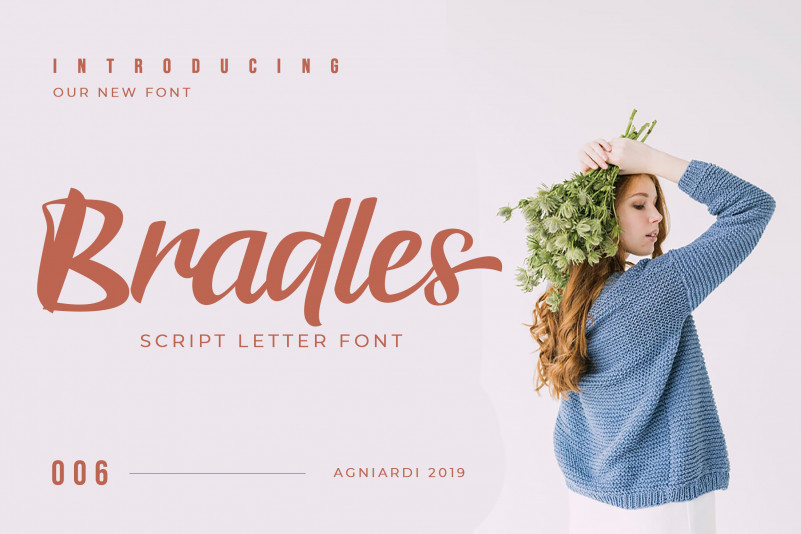
Bradles Script Font
Introducing our font Bradles. A bold handwritten typeface that will very suitable for any projects of yours. Perfect for display purposes like flyer, logotype, header, signage, etc. Works well on both modern and vintage style. You can check our preview samples for trigger some ideas.